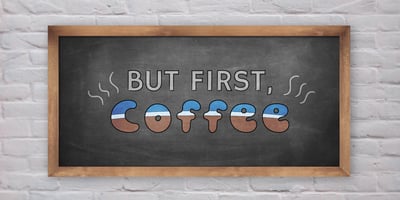
Auberjean Font Family was designed by Abby Girod and published by Abbyland. Auberjean contains 1 styles and family package options. Auberjean is a playful handmade display font, great for social posts, editorial design, posters, book covers, signs, and more! This font has a hip and contemporary feel. It works well for headlines as both uppercase and lowercase, as well as short blocks of text like quotes and info blurbs. The thick, rounded style means it looks great with an outside stroke or offset outline.